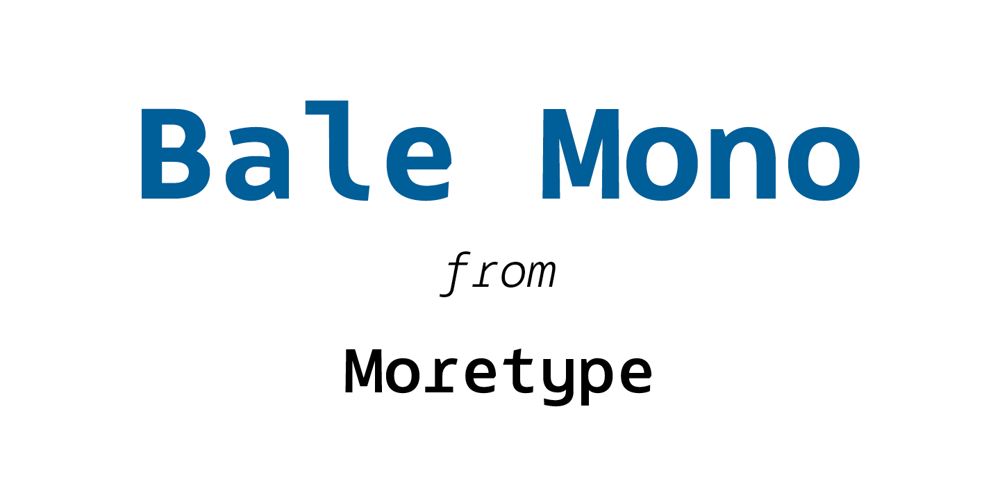
Bale Mono Font Family was designed by Chris Dickinson and published by moretype. Bale Mono contains 10 styles and family package options. Bale Mono is the monospaced companion of Bale. This Mono font brings a technical edge to the cool professionalism of Bale. Originally developed as a part of a corporate identity, Bale is a warm and confident sans-serif font. With its generous counters and angled terminals Bale is a dependable work horse with enough flare to add interest to any typographical landscape. This hardworking font comes equipped with small caps, automatic fractions, proportional/tabular lining and old style figures and alternative glyphs and is the must for any typographic toolkit.